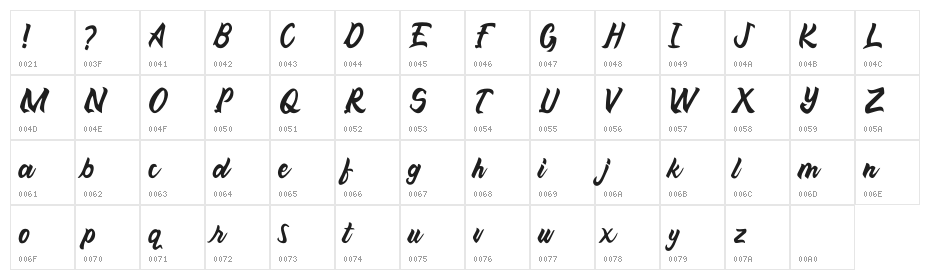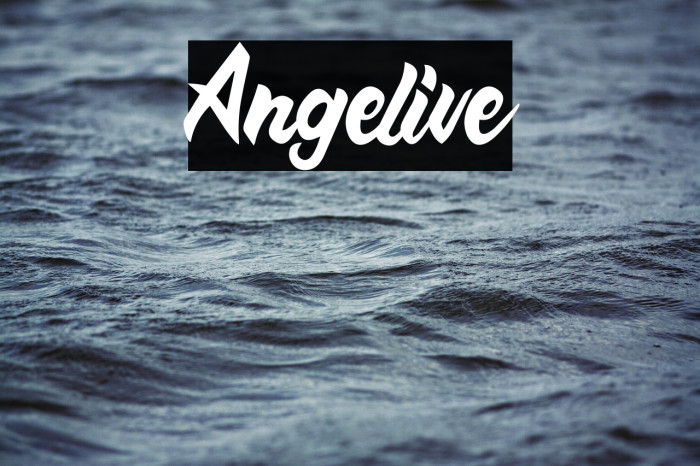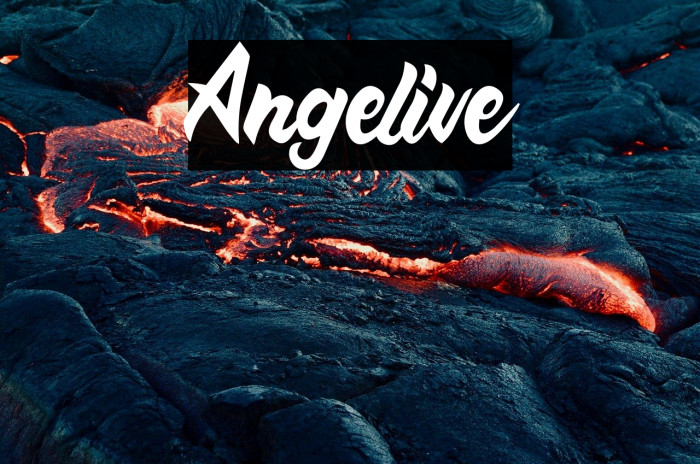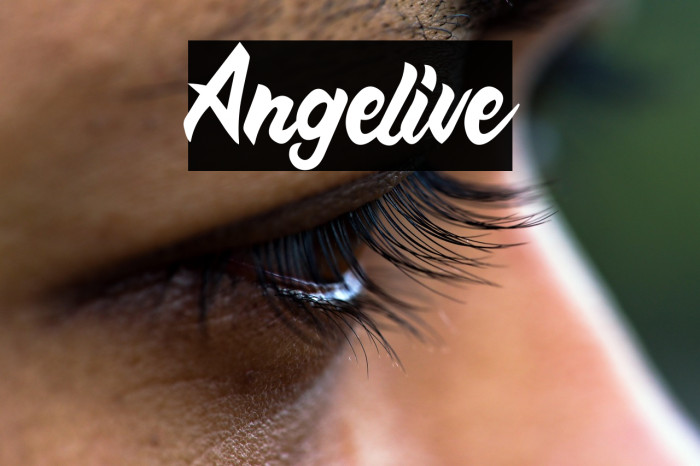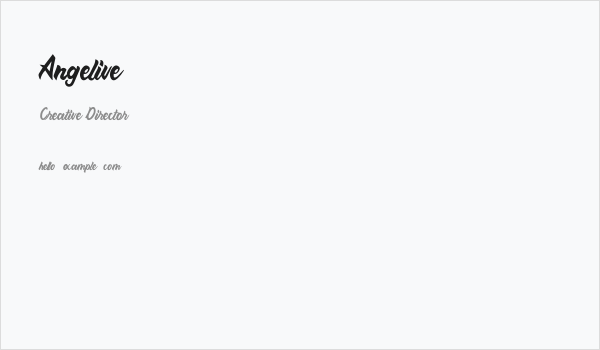
Angelive Font
Angelive Description
This font features a bold and dynamic script style with a strong calligraphic influence. The characters are fluid and connected, giving a sense of movement and elegance. The uppercase letters are particularly striking, with dramatic flourishes and a slightly condensed form. The lowercase letters maintain a consistent flow, enhancing readability while retaining the decorative nature. The font exhibits a medium contrast in stroke thickness, adding to its visual appeal. It is well-suited for projects that require a touch of sophistication and flair.
| Width | Condensed |
| Use Case | Logos, Headlines, Invitations |
| Proposed Projects | Ideal for wedding invitations, branding, logo design, and elegant packaging. |